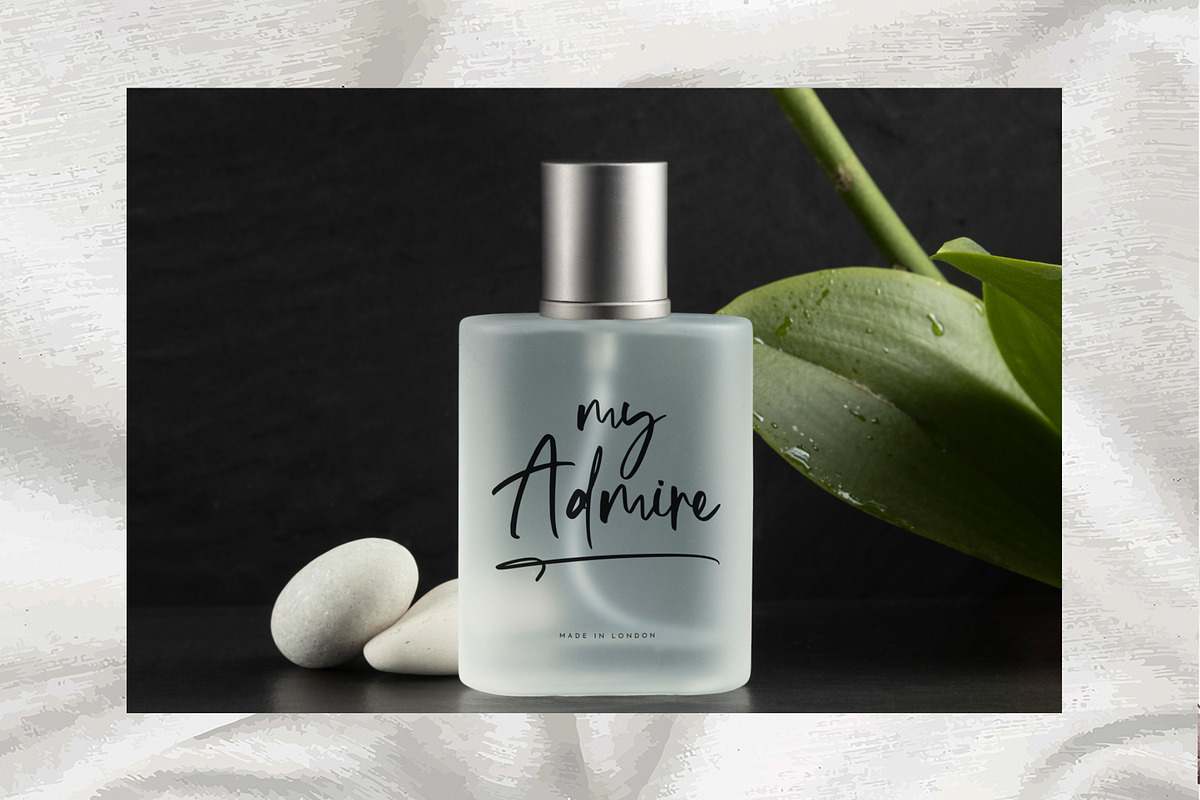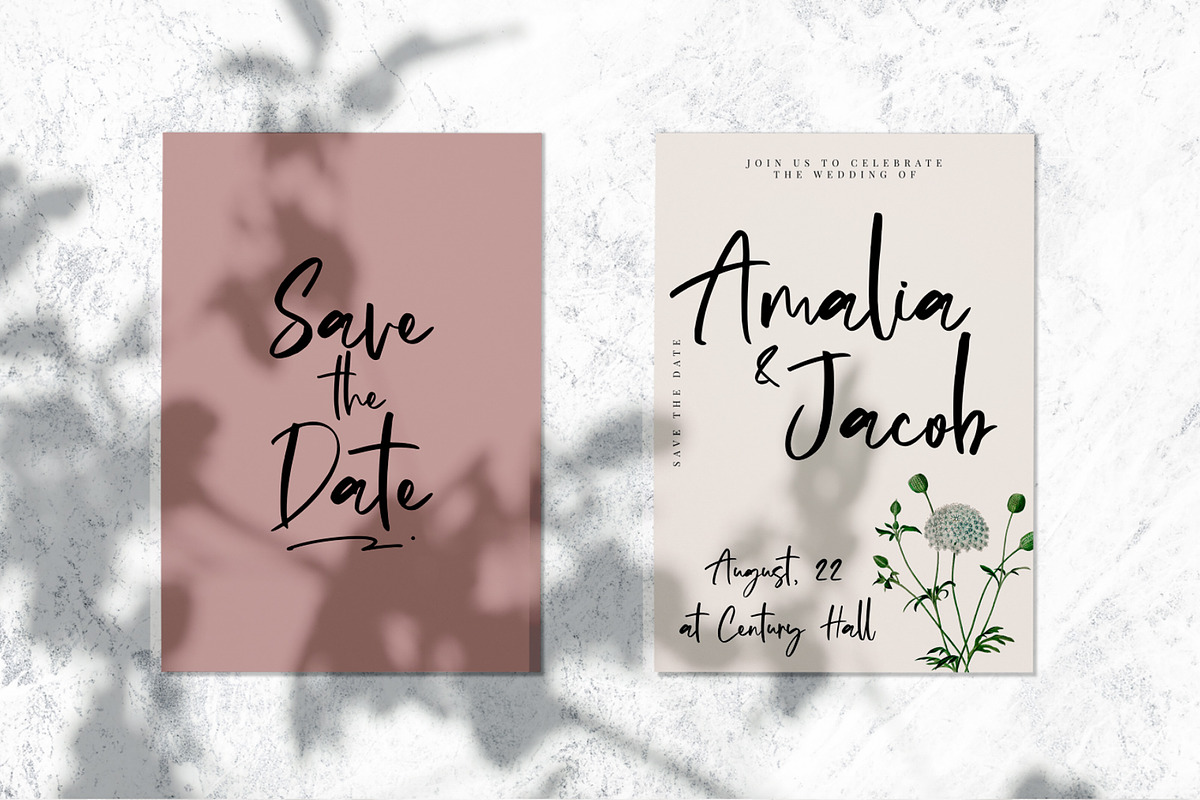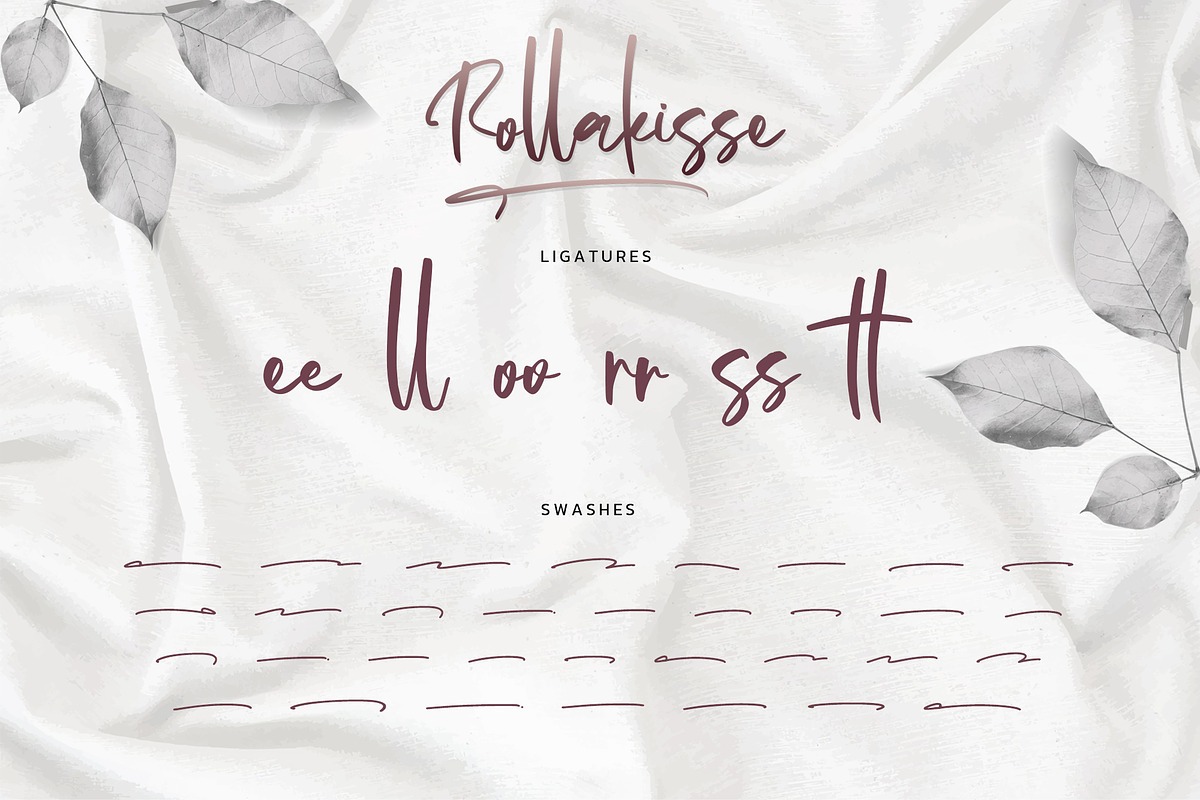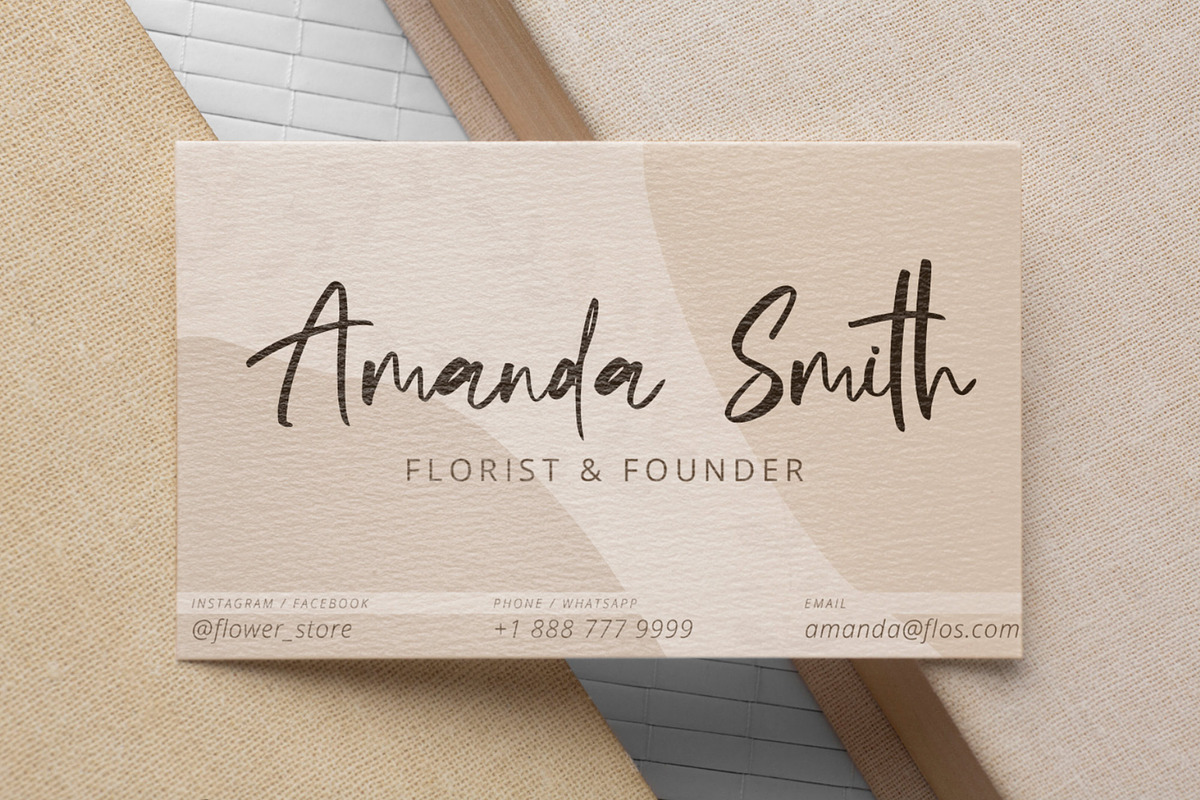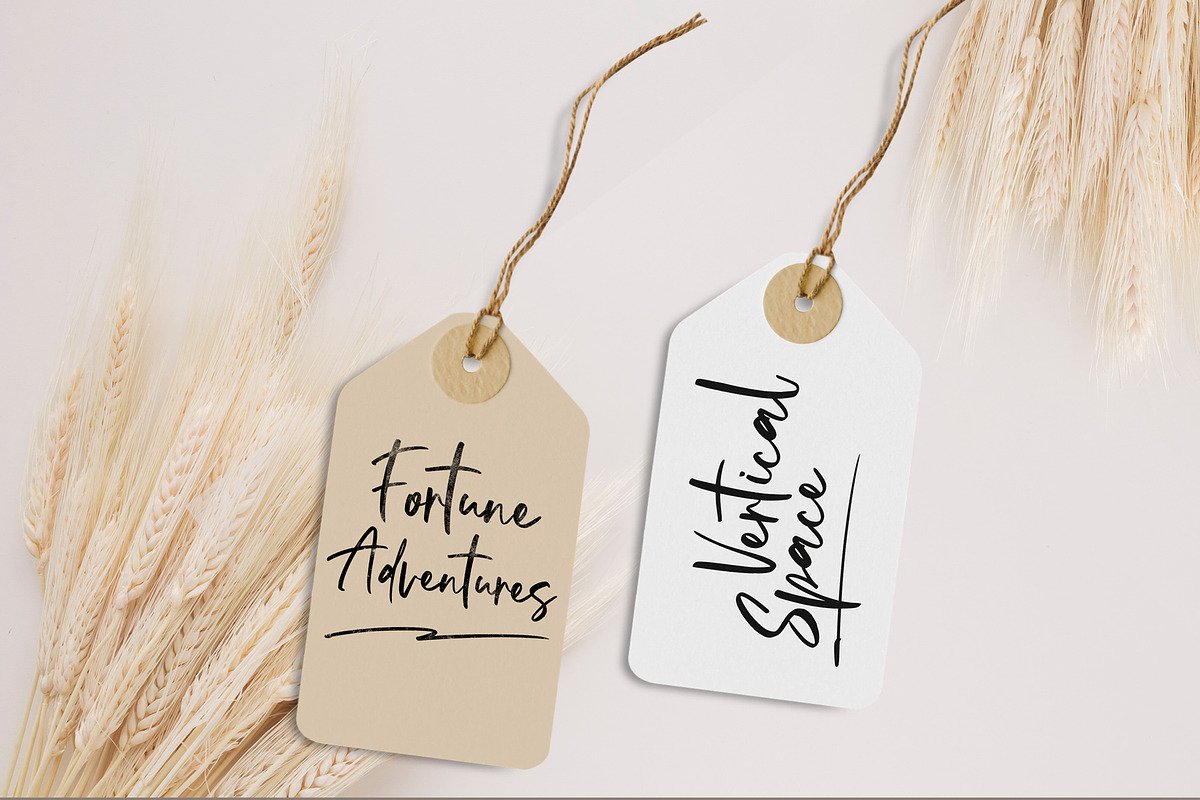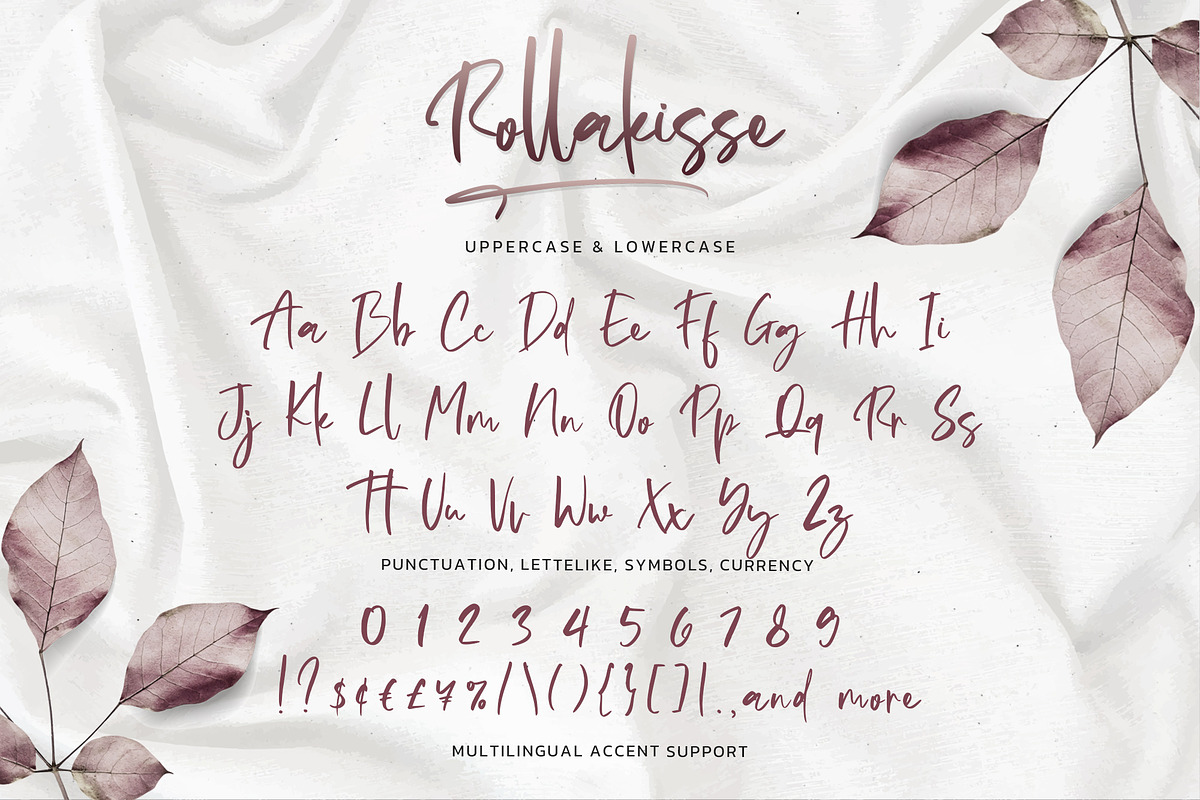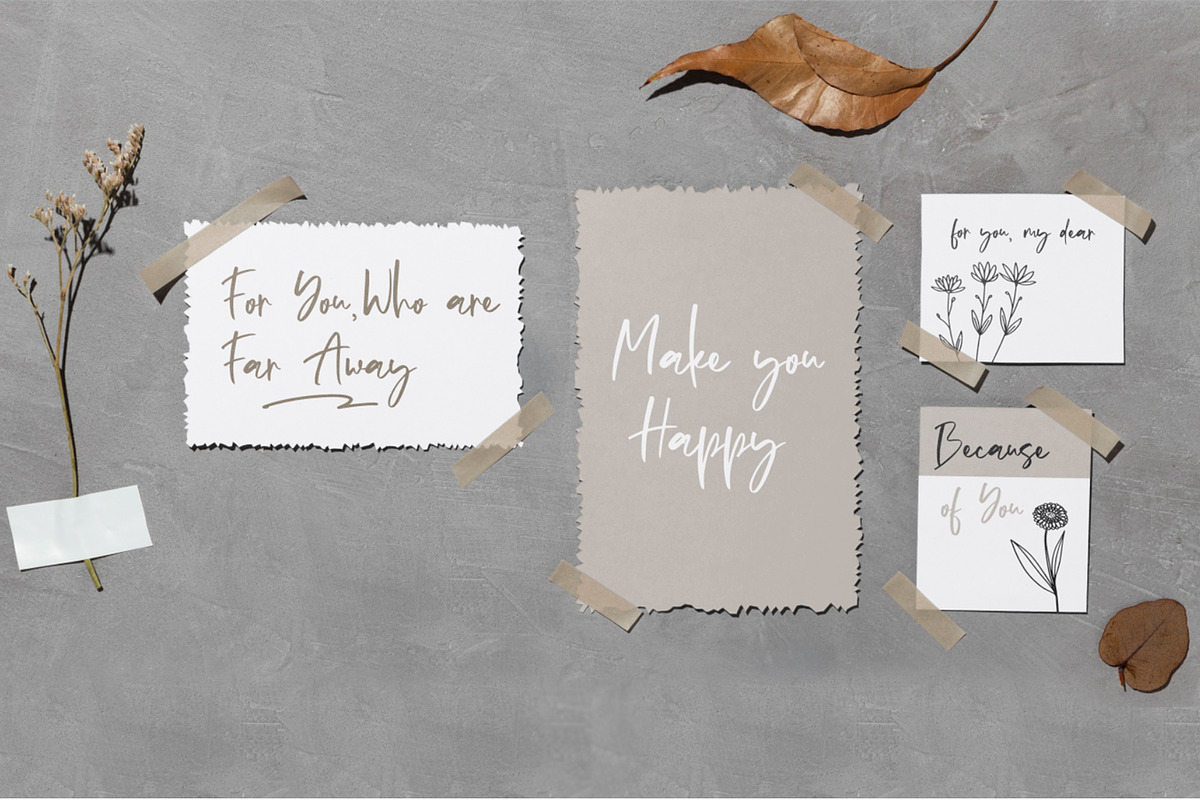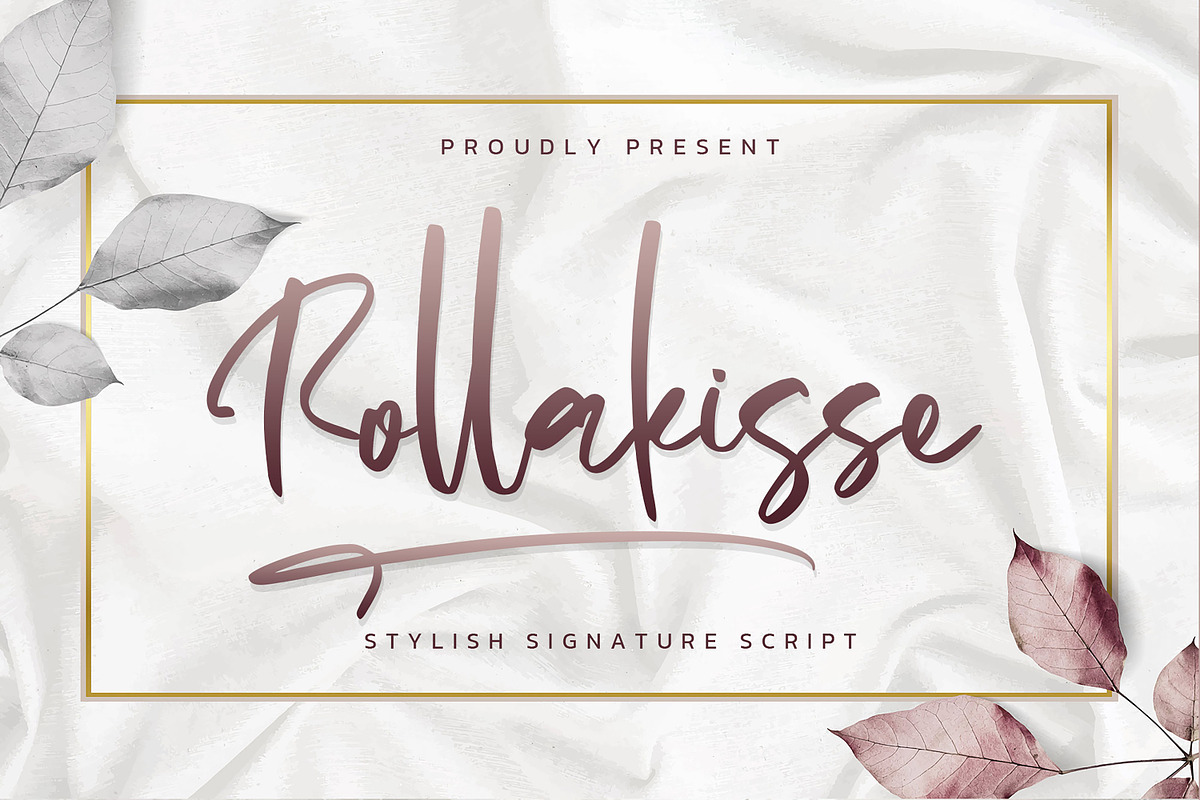
Rollakisse – Stylish Signature
Rollakisse is an elegant signature script crafted with graceful strokes, flowing curves, and a beautifully expressive handwritten rhythm. Designed to capture the essence of sophistication and timeless charm, this typeface brings a refined personal touch to every design. Its fluid letterforms, delicate swashes, and natural handwritten movement create a luxurious signature aesthetic—perfect for designs that seek elegance, femininity, and a polished modern feel. Rollakisse blends handcrafted character with a sophisticated finish, making every word feel personal and effortlessly beautiful.
Great For
• luxury branding, boutique logos & fashion labels • personal signatures, name branding & stationery • wedding invitations, romantic quotes & editorial layouts • photography watermarks & creative portfolios • elegant packaging design & premium product identity • feminine, classy & modern design compositions
Style & Feel
elegant • handwritten • luxurious • graceful • romantic • refined • timeless